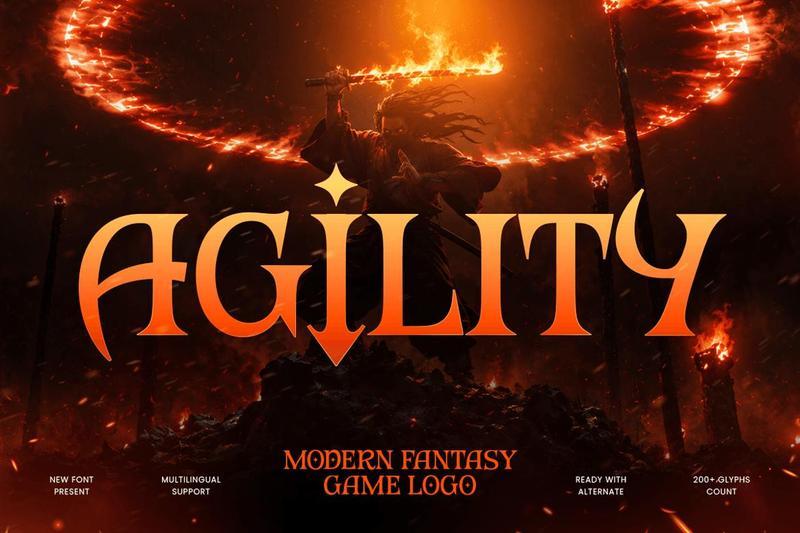
**Agility Modern Fantasy Game Logo Font**
Agility is a modern fantasy game logo font designed to bring adventure, power, and immersive storytelling into every design. Featuring bold letterforms, fantasy-inspired details, and a dynamic modern style, Agility is perfect for game logos, RPG titles, streaming graphics, fantasy branding, digital entertainment, and creative gaming projects.
Blending epic fantasy aesthetics with contemporary typography, **Agility** creates a striking and memorable visual identity. Its distinctive structure ensures excellent readability while maintaining a bold and adventurous character, making it ideal for game developers, content creators, esports events, digital campaigns, and cinematic title designs.
**Agility Modern Fantasy Game Logo Font Features:**
* Modern fantasy style with adventurous visual aesthetics
* Bold letterforms with unique game-inspired character
* Ideal for game logos, title screens, streaming, and branding
* Uppercase, lowercase, numerals, and punctuation included
* Distinctive structure with strong readability
* Perfect for RPGs, fantasy worlds, digital campaigns, and entertainment visuals
Create legendary adventures with **Agility** the modern fantasy font crafted for immersive game branding.